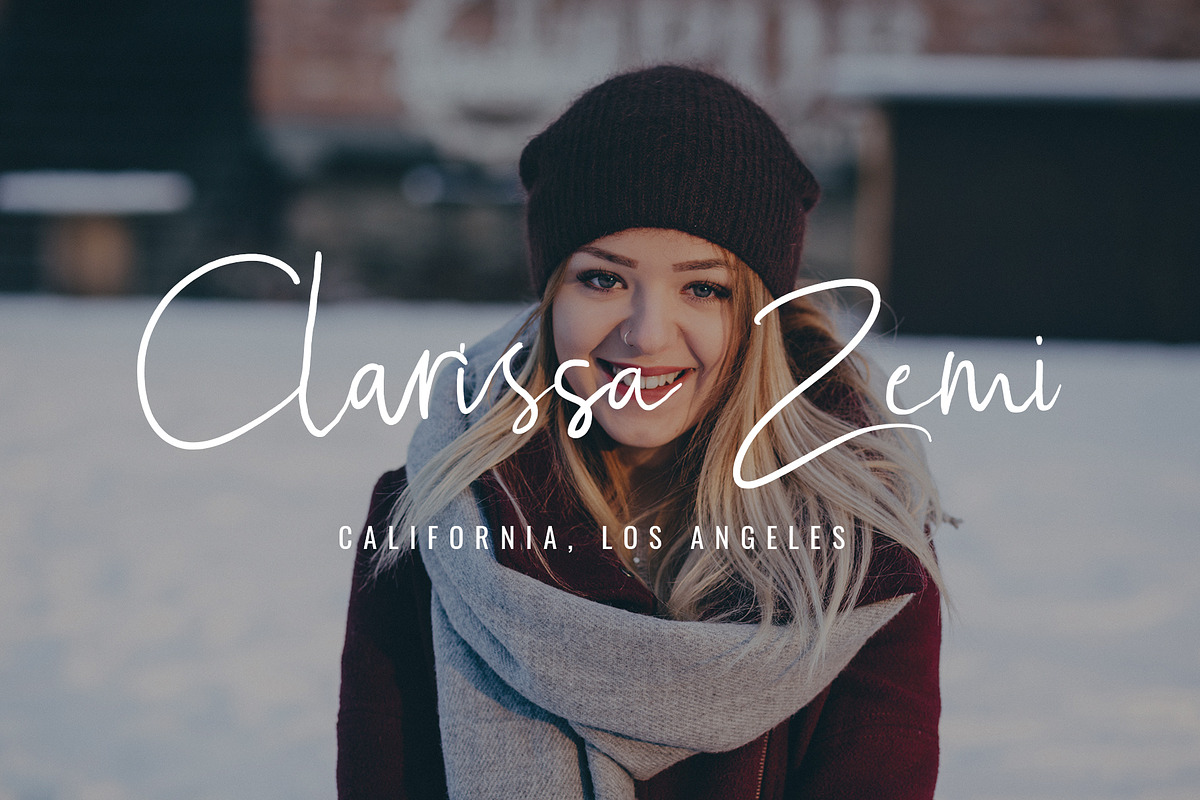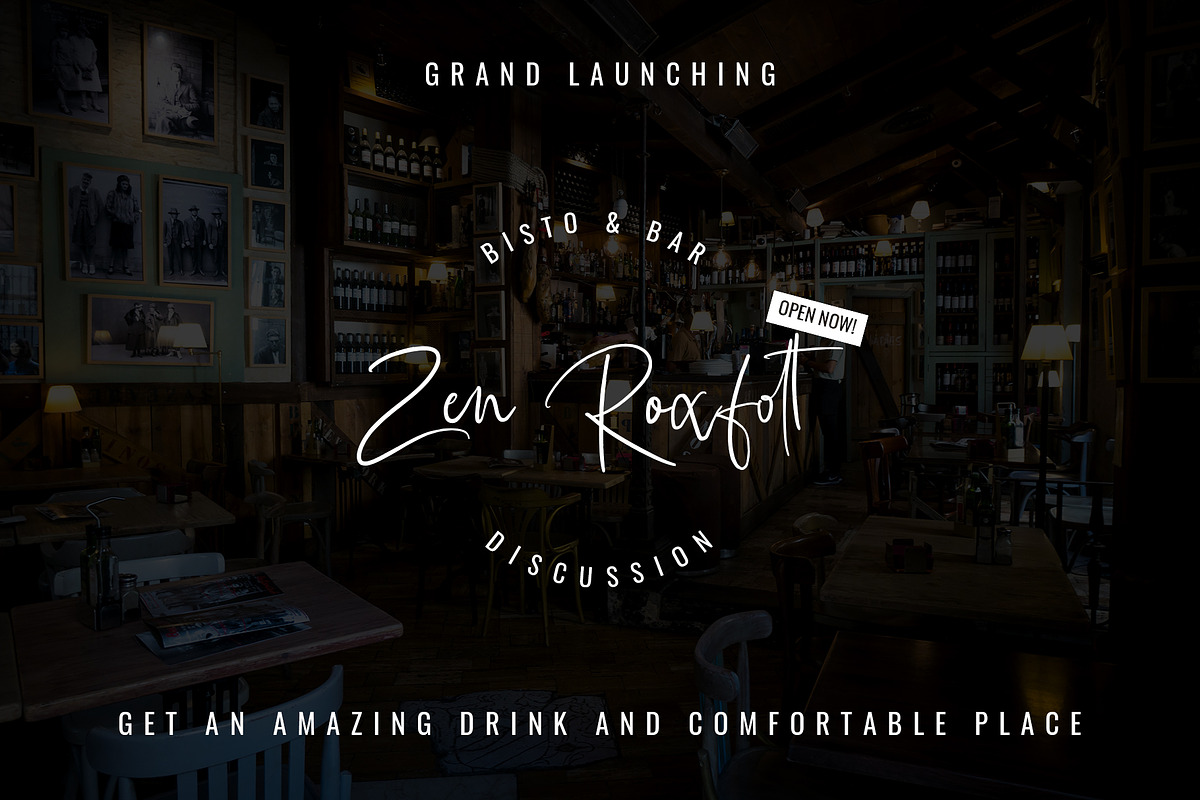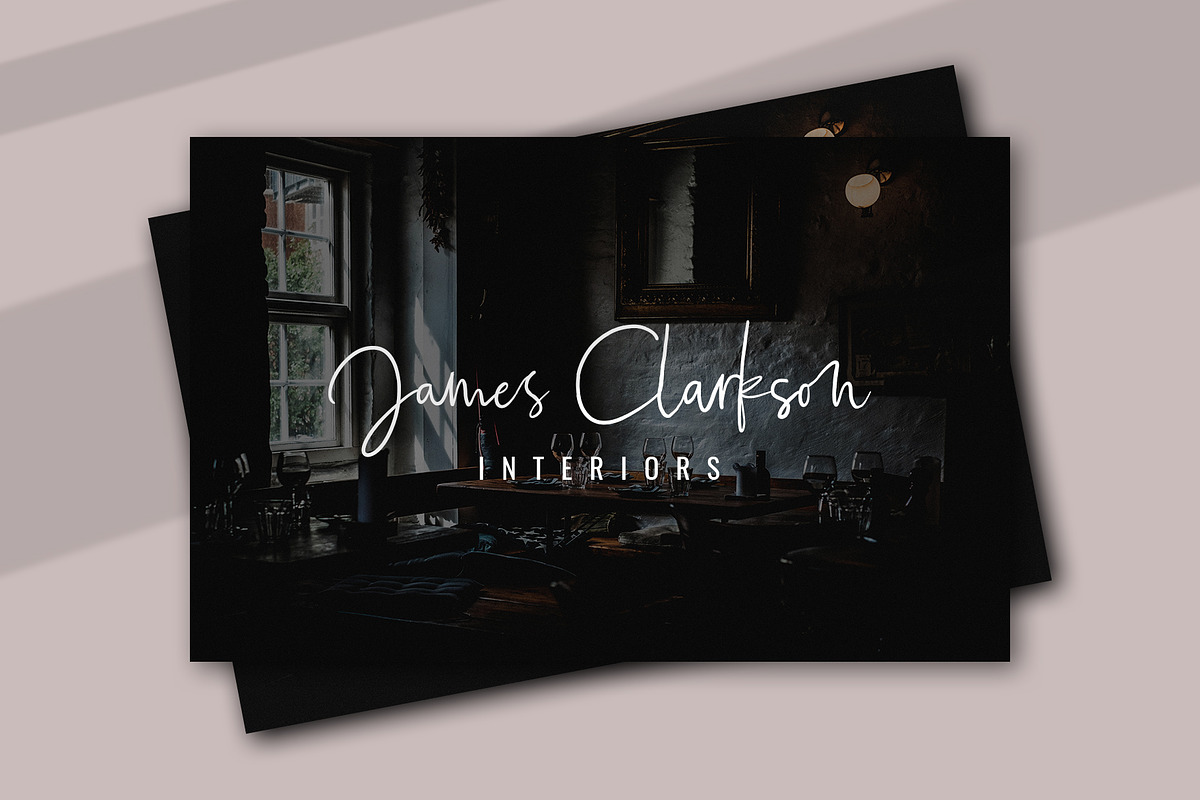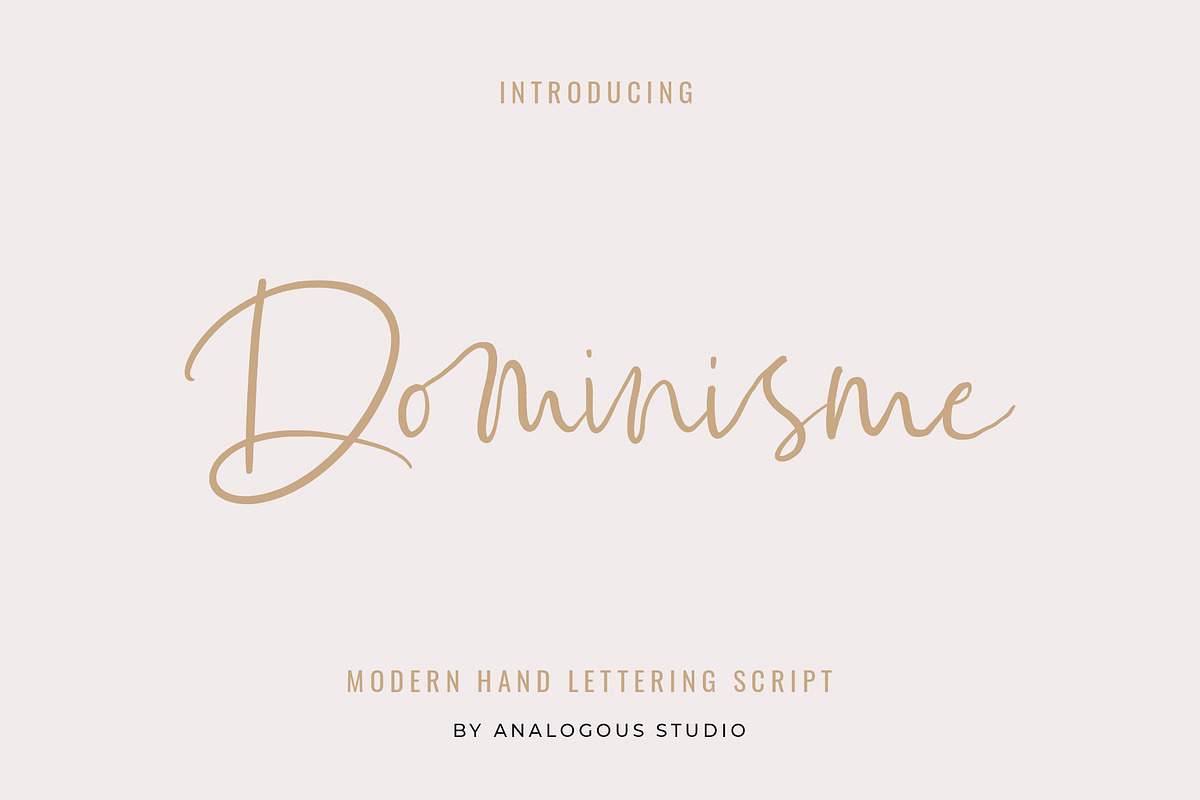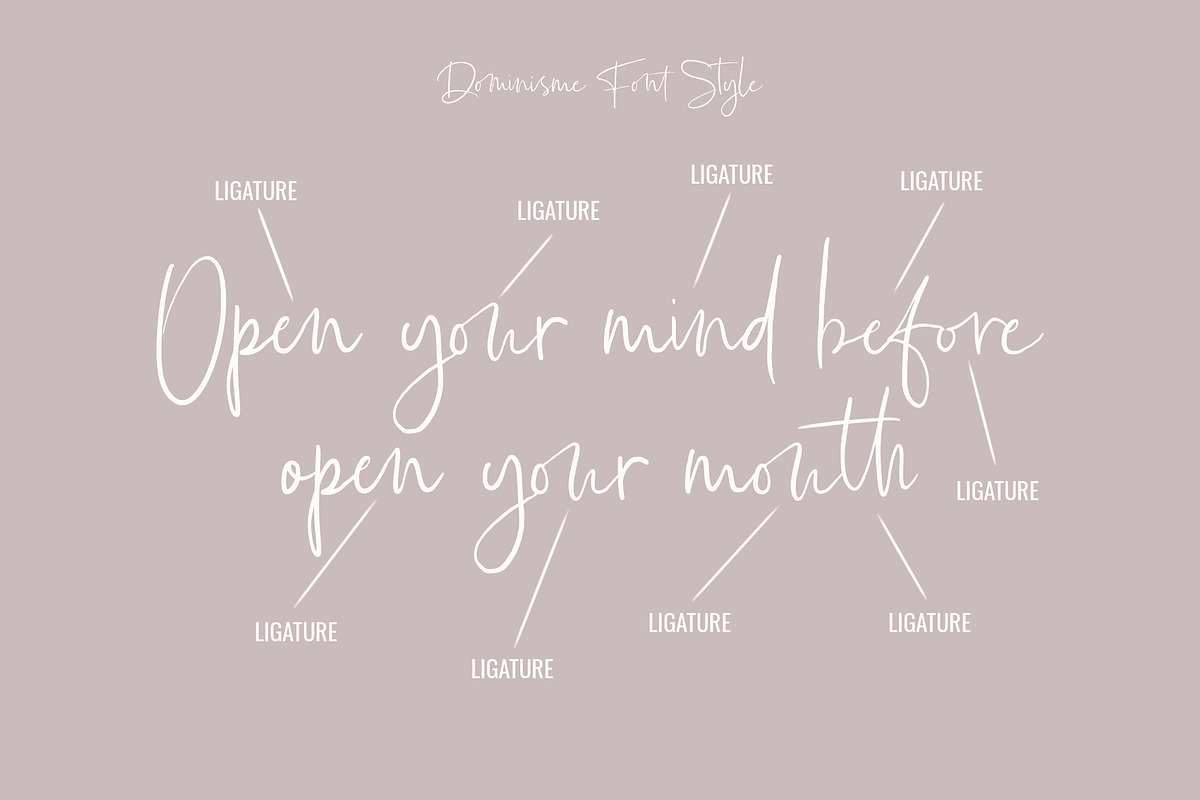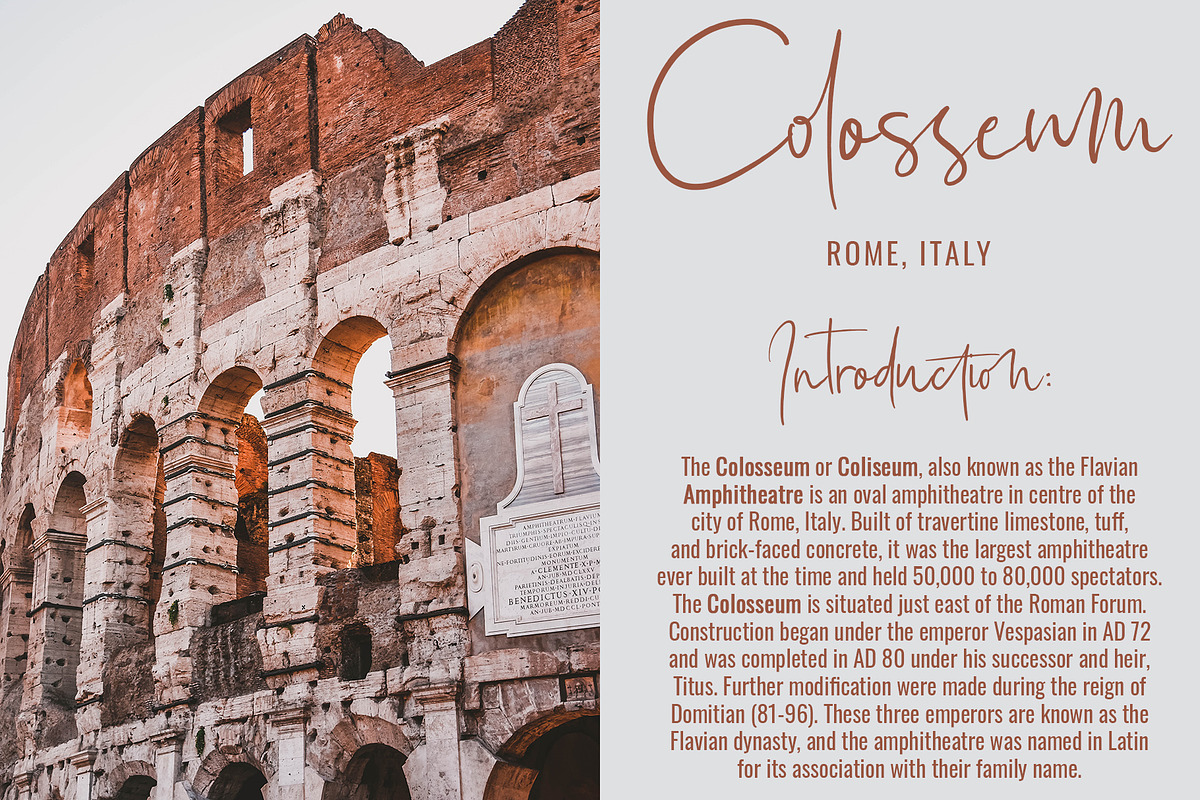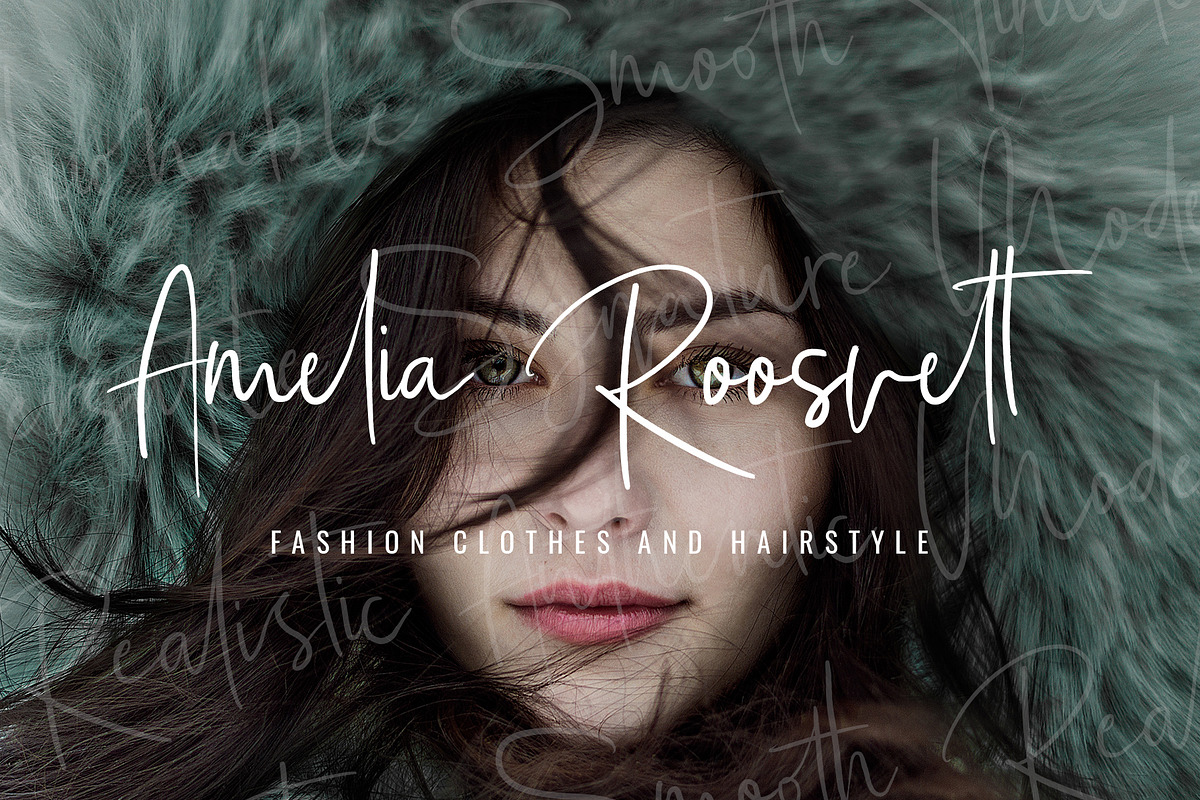
Dominisme Handwritten Font
Introducing Dominisme hanwritten font
Dominisme is a modern font perfect for branding, invitation, stationery, wedding designs, social media posts, advertisements, product packaging, product designs, label, photography, watermark, special events or anything.
With more than 50 ligatures, they will make your design be more attractive, eye-catching and will suit well for feminine.
Dominisme with full set of uppercase and lowercase letters, ligatures, multilingual symbols, numerals and punctuation.
Dominisme Handwritten Font by Analogous fits naturally into Branding, posters, packaging, typography.